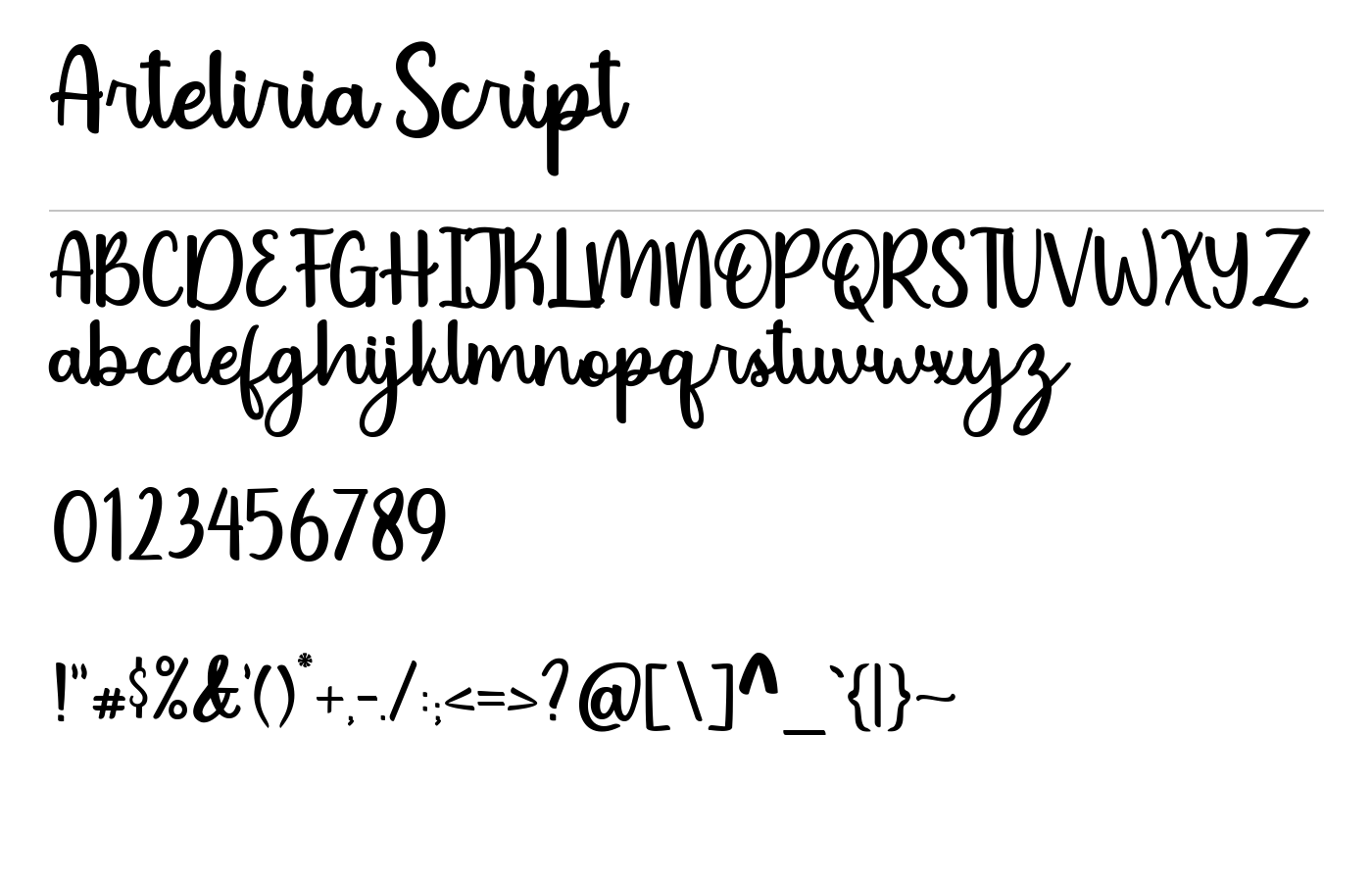
Arteliria Script is a playful and friendly handwritten script font with a smooth, casual flow and medium weight strokes that create a warm, inviting appearance. Its tall x-height and unique letterforms, including a lively ampersand and distinctive uppercase characters, make it ideal for use in creative branding, invitations, and informal headlines where a personal, approachable touch is desired. This font works well in projects that aim to convey charm and personality without sacrificing readability.
Arteliria Script Font
About Arteliria Script Font